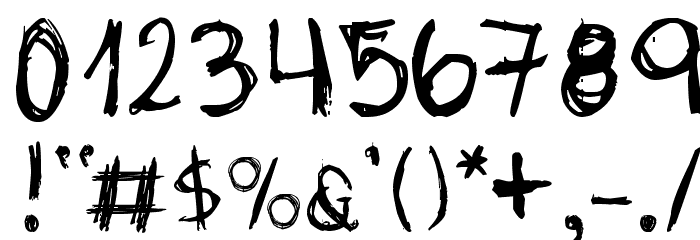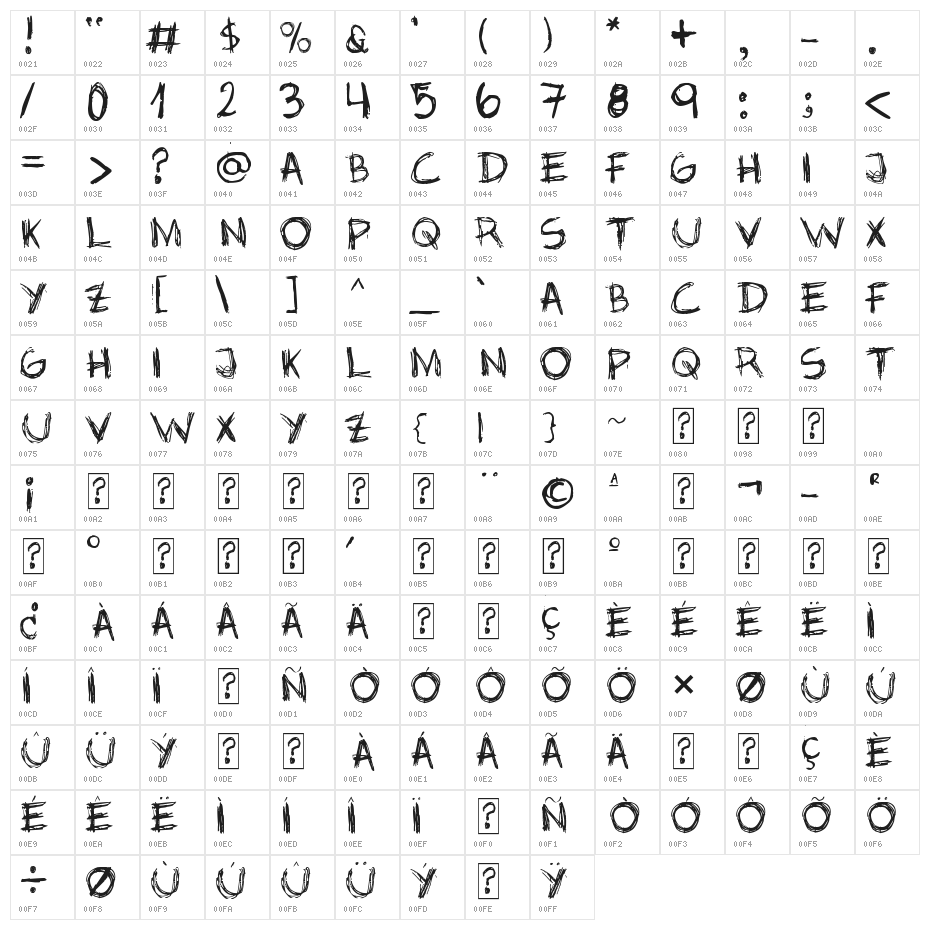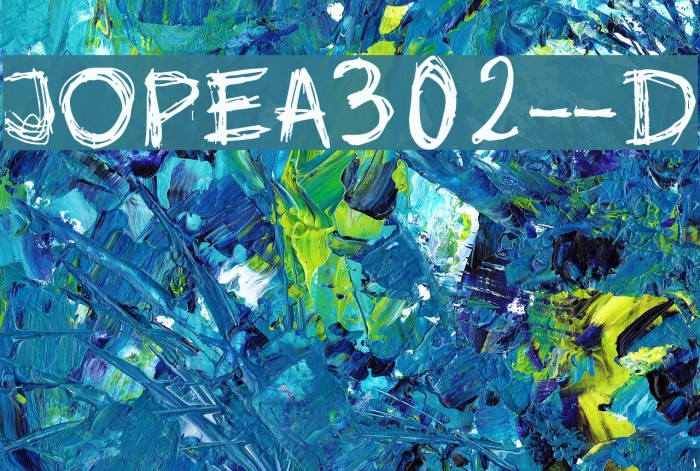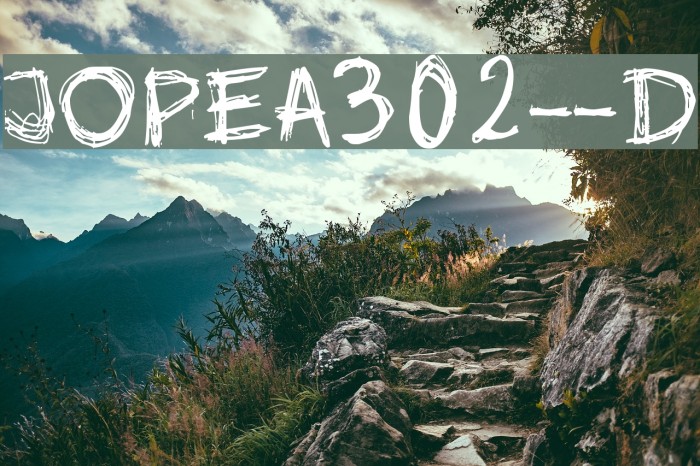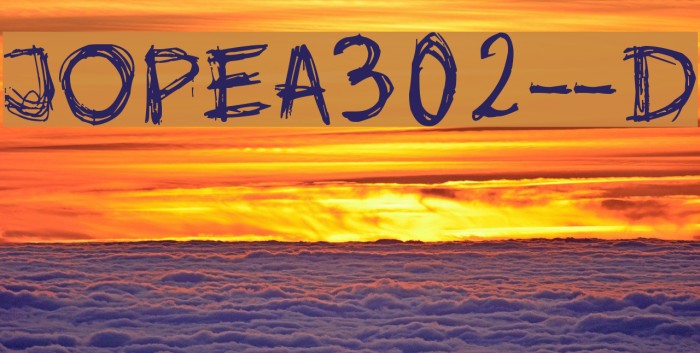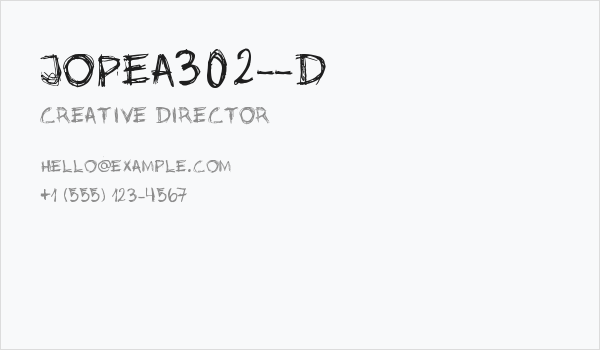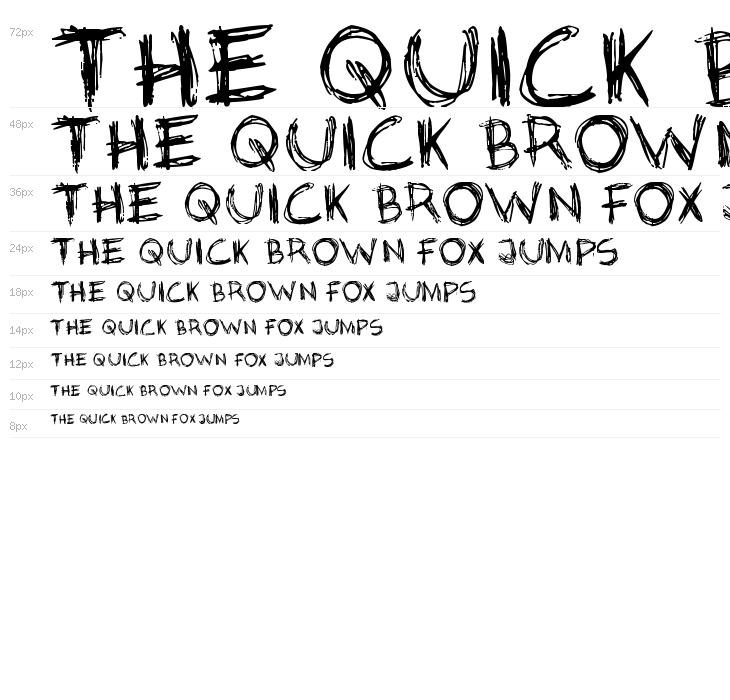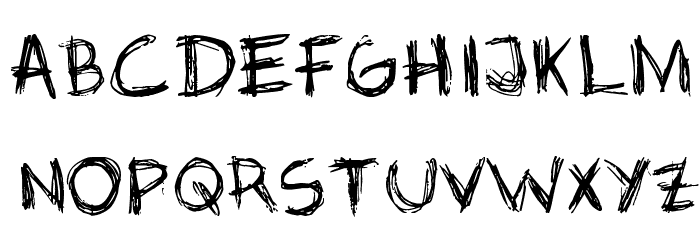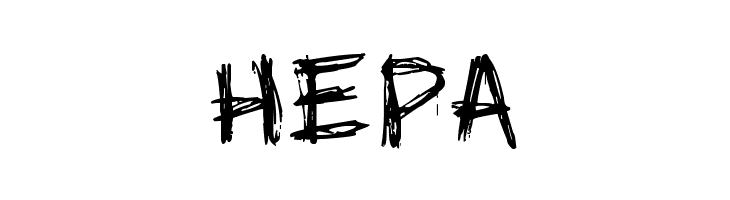
jopea302--D Font
jopea302--D Description
This font features a bold, expressive style with a hand-drawn appearance, characterized by uneven strokes and a slightly chaotic aesthetic. The letters have a rough, textured look, giving them a dynamic and energetic feel. The uppercase and lowercase letters maintain a consistent style, with exaggerated curves and angles that add to the overall impact. Numbers and special characters follow the same design principles, ensuring a cohesive look across all glyphs. This font is ideal for projects that require a bold statement or an artistic touch, such as posters, album covers, or creative branding.
| Proposed Projects | Ideal for posters, album covers, creative branding, and artistic projects. |